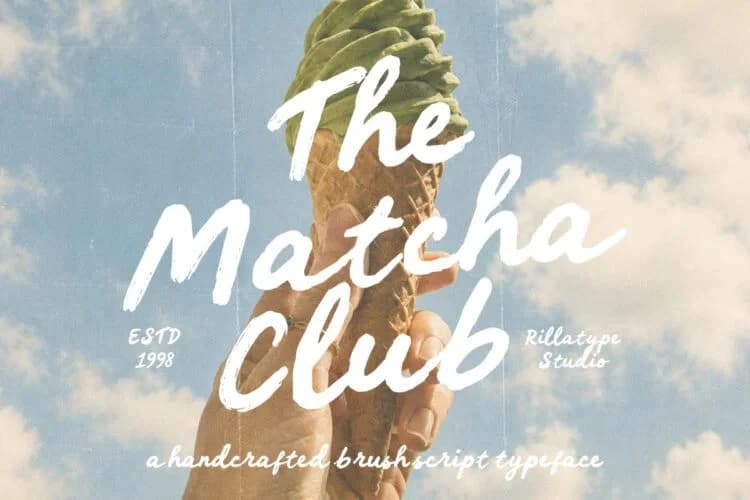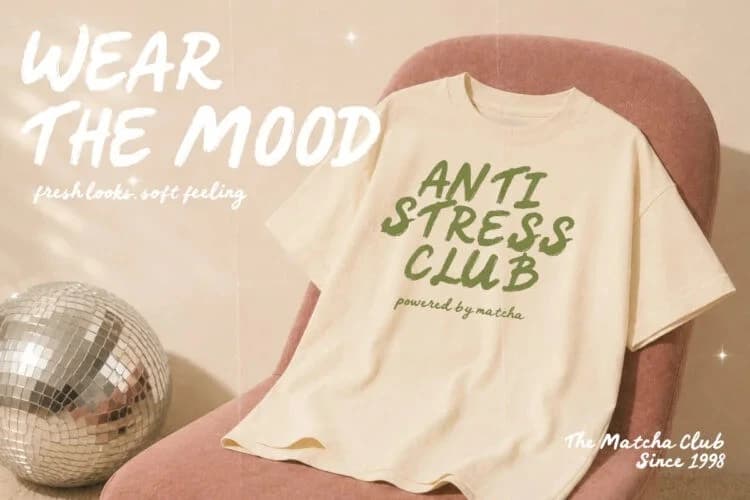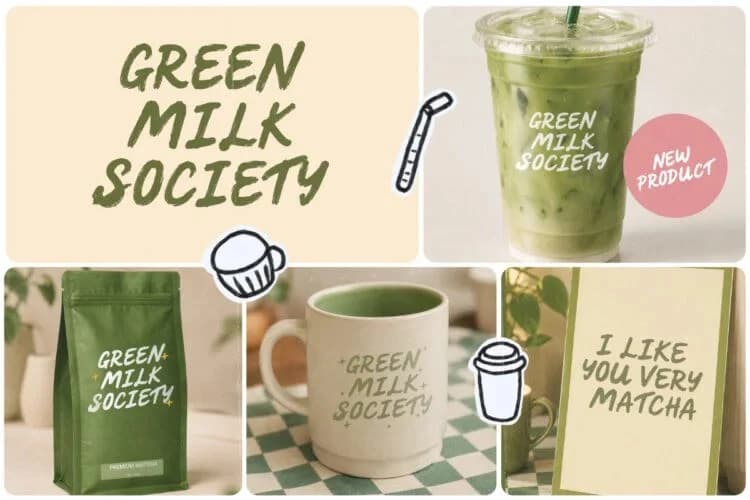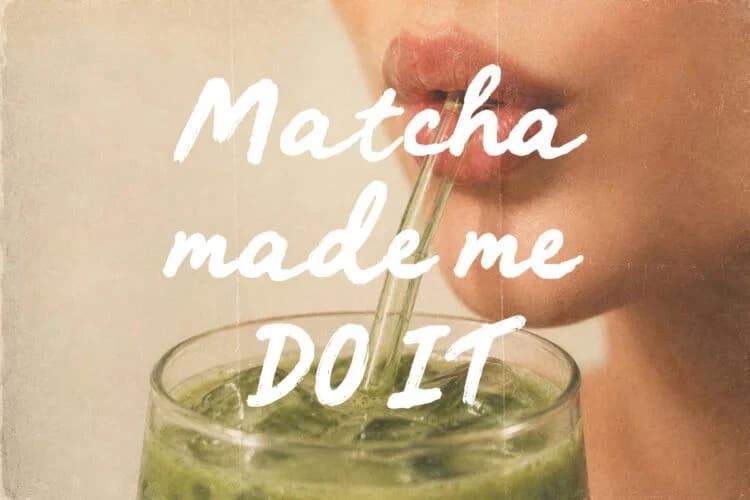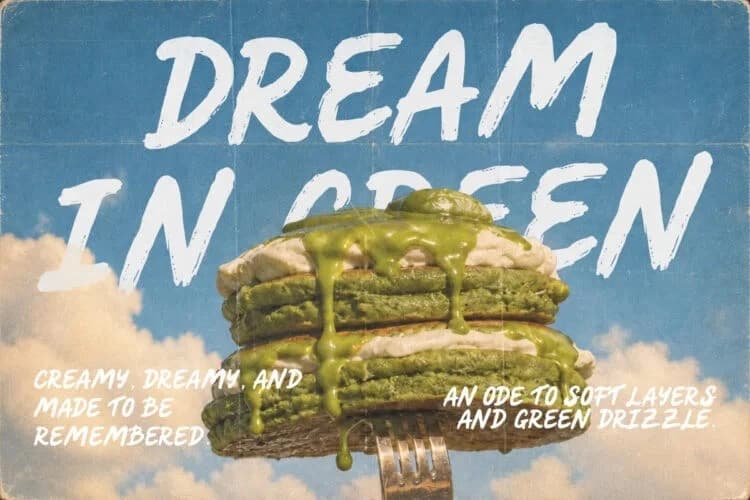
The Matcha Club Font
The Matcha Club Font is a bold handwritten brush font inspired by cozy café branding, retro lifestyle posters, playful packaging, and fresh drink culture. It features chunky brush strokes, natural handwritten flow